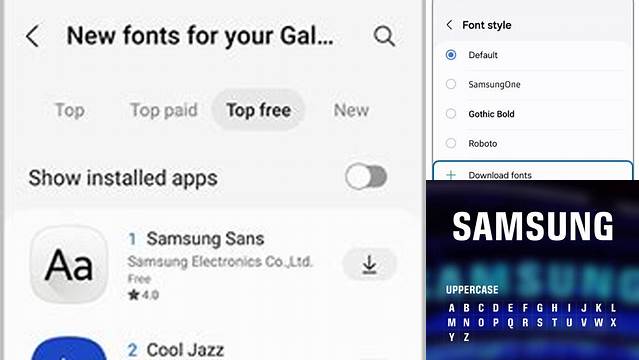
Cool Monotype Fonts For Your Samsung Phone
Hey everyone! Ever feel like your Samsung phone's text just isn't doing it for you? Maybe it's time to spice things up with some awesome Monotype fonts! This guide is your ultimate go-to for everything Monotype fonts for Samsung. We'll dive deep into how to get them, what makes them great, and how to make your phone look totally unique. So, buckle up, guys and gals, because we're about to make your phone's text game strong!
H2: Unleashing the Power of Monotype Fonts on Your Samsung
Alright, let's kick things off with the basics. Why are Monotype fonts for Samsung such a big deal, anyway? Well, think about it: your phone is basically an extension of you. It reflects your personality, your style, and what you find cool. The default font, while perfectly fine, is, let's face it, a bit blah. Monotype fonts offer a way to instantly customize your phone's look and feel. They are designed to be both readable and visually appealing, which is a win-win for everyday use and those times when you want your phone to look extra stylish. Getting your hands on these fonts is relatively easy, and the payoff is huge. You'll be surprised at how much a simple font change can transform your user experience. No more boring text! With the right Monotype font, you'll be enjoying a new level of personalized aesthetics. Choosing the right fonts can also dramatically improve the readability of your phone. Monotype has an extensive library, and you’re sure to find some that fit your individual style.
H2: The Best Monotype Fonts for Samsung: Our Top Picks
Okay, let’s talk about some of the best Monotype fonts you can snag for your Samsung. There's a huge variety out there, so we'll highlight a few of our faves to get you started. First up is Roboto. This is a classic and reliable sans-serif font designed by Google. It is incredibly readable and looks great on any Samsung device. Then, there is Helvetica, a timeless and versatile sans-serif font that exudes elegance. It's perfect if you're looking for something clean and sophisticated. If you want a more modern vibe, check out Open Sans. This is another excellent choice with a modern look that is easy on the eyes. It is a very popular choice. Another great option is Lato. This is a warm and friendly sans-serif font that's perfect for adding a touch of personality. And finally, we can't forget about the Monotype originals, which are optimized specifically for mobile viewing. Many Monotype fonts are designed for readability and visual appeal. There are many great options out there. Whether you're a fan of sleek and modern designs or prefer something classic and elegant, there is a perfect Monotype font for you. These fonts are all readily available through the Samsung Galaxy Store. Just search for their names. Always test the fonts on your device to see how they look and feel before making a decision. Your goal is to find fonts that reflect your personal style and enhance your phone experience. Feel free to explore other options. There are many different options. Experimenting with different fonts is half the fun of customizing your phone! Remember, the best font is the one that makes you happy.
Monotype fonts offer a wide variety of styles. Consider your needs. Do you prefer a font that emphasizes readability or aesthetics? It is also important to consider the overall look of your phone. A good Monotype font should complement your wallpaper, icons, and other design elements. You may also want to consider the specific applications you use the most. Some fonts are better suited for reading long articles, while others are better for writing emails. Feel free to try out different fonts and combinations to see what works best for you. You can always switch back to your favorite font. There is also the possibility of using a font management app. These apps allow you to easily manage your installed fonts and switch between them. Explore the different fonts, and you will discover the endless possibilities for personalizing your Samsung device.
H2: Free vs. Paid Monotype Fonts: What's the Deal?
When you're browsing Monotype fonts for your Samsung, you'll probably notice a mix of free and paid options. Let's break down the pros and cons of each. Free fonts are awesome because, well, they're free! You can download and use them without spending a dime. This is a great way to experiment with different styles and see what you like. The downside? The selection of free fonts might be more limited, and the quality can sometimes vary. You might find that some free fonts are not as well-designed or optimized for mobile viewing. Paid fonts, on the other hand, often come with a higher level of quality and design. Monotype and other font designers invest time and resources into creating fonts that are beautiful and functional. Paid fonts also often have a wider range of characters and glyphs, which can enhance your overall experience. The downside? You have to pay for them! Prices typically vary, but it's worth considering whether a premium font is worth the investment. Ultimately, the best choice for you depends on your personal preferences and budget. If you are just starting out, free fonts are a great way to dip your toes in the water and see how you like customizing your font. If you are really passionate about the look of your phone, and you want a premium font, paying a bit more is worthwhile. You can also mix and match. Using some free fonts and some paid fonts will give you a wide array of options. No matter which option you choose, be sure to read reviews and check out previews before making your final decision. Finding the perfect Monotype fonts can make a big difference to your phone's user interface.
Remember, the price of Monotype fonts can be an important factor. If you're looking to save some money, try to find free fonts. It may be more economical to select a few paid fonts that you like. Be sure to read reviews of the fonts, to make sure they are worth the price. It is important to consider the features offered by each font. Some fonts offer more features, like alternate characters, or different weights and styles. Consider the potential of each font. How will you use the font? Does the font suit your taste? How easy will the font be to read? There are many options for choosing a Monotype font. Free and paid fonts offer different advantages. Think about your needs and preferences. And then, select the option that works best for you. The fonts you choose will make your phone look exactly as you wish.
H2: Troubleshooting Common Issues with Monotype Fonts
Sometimes, things don't go exactly as planned. Here are some common issues you might run into when using Monotype fonts for Samsung, and how to fix them. The most common problem is that a font isn't showing up after you've downloaded it. Make sure your device is connected to the internet. Double-check that you downloaded the font from a reliable source. Then, go to your settings and navigate to the font settings. You might need to restart your phone after installing a new font. This can often resolve any display issues. If you are still having trouble, try clearing the cache for the Samsung Galaxy Store app. You can do this in the app settings. Another issue is that some apps may not support custom fonts. Unfortunately, not all apps allow you to change the font. In this case, you're out of luck, unless there is a setting within the app itself. Another potential problem is font rendering issues. If a font looks blurry or pixelated, it could be because it isn't optimized for your screen resolution. Check if there are different versions of the font available that are optimized for mobile viewing. Also, make sure your phone's software is up to date. Software updates often include improvements that affect font rendering. When troubleshooting, always start with the simplest solutions first. Make sure your device is connected to the internet. Then, restart your phone. Also, be sure you downloaded the font from a reliable source. If none of these suggestions work, you can always try contacting Samsung support. They can provide you with tailored assistance. In most cases, these basic troubleshooting steps will get things up and running again.
The future of Monotype fonts is bright. Samsung will continue to innovate. We can expect new fonts and features. Samsung will also work to increase accessibility. The goal is to improve the user experience. We can expect more features. These features will let you customize your device. Samsung is continuing to evolve. You will be able to select from new options. Customization features will improve. Samsung is also likely to work with AI. AI can help users. AI will help with customization. New options will benefit the users. Innovation is a part of Samsung's culture. Samsung will provide the best experience to users. There will be more ways to express yourself. There are many options. There are many fonts to select from. With Monotype fonts on the horizon, the future is looking bright. Users can look forward to new innovations. Samsung will continue to provide the best experience.